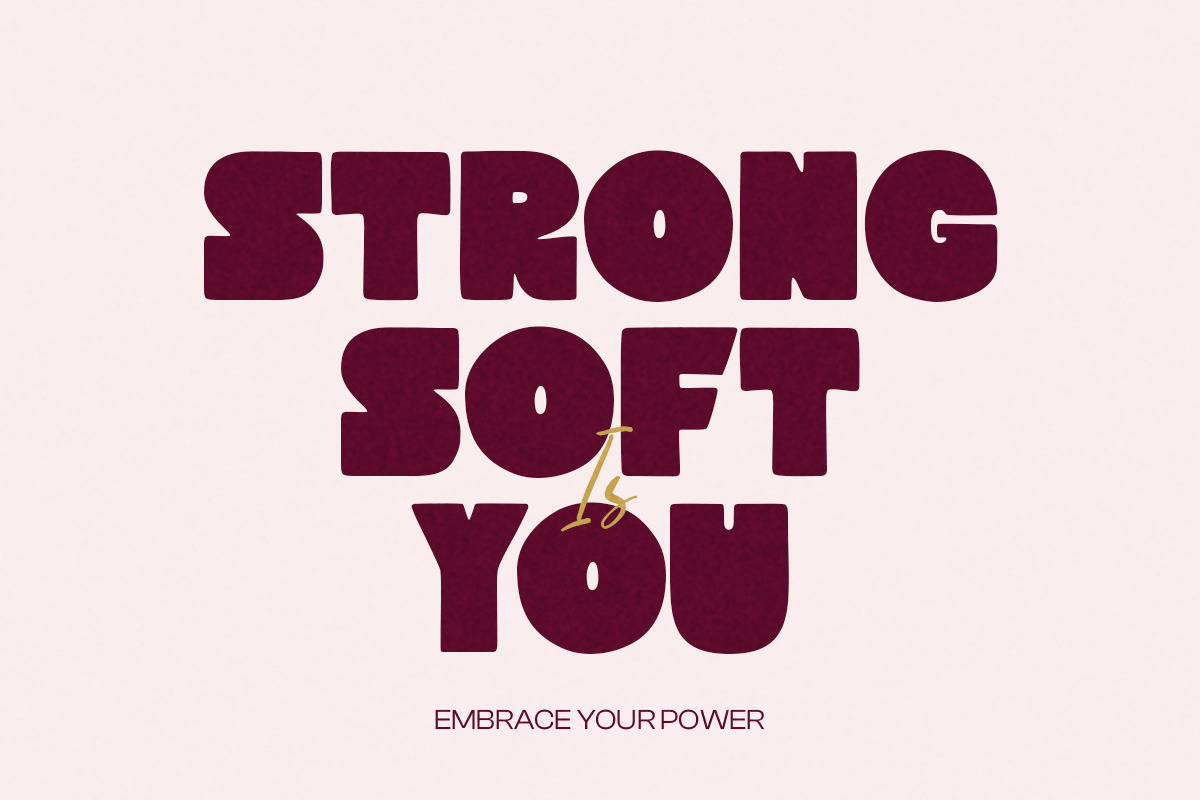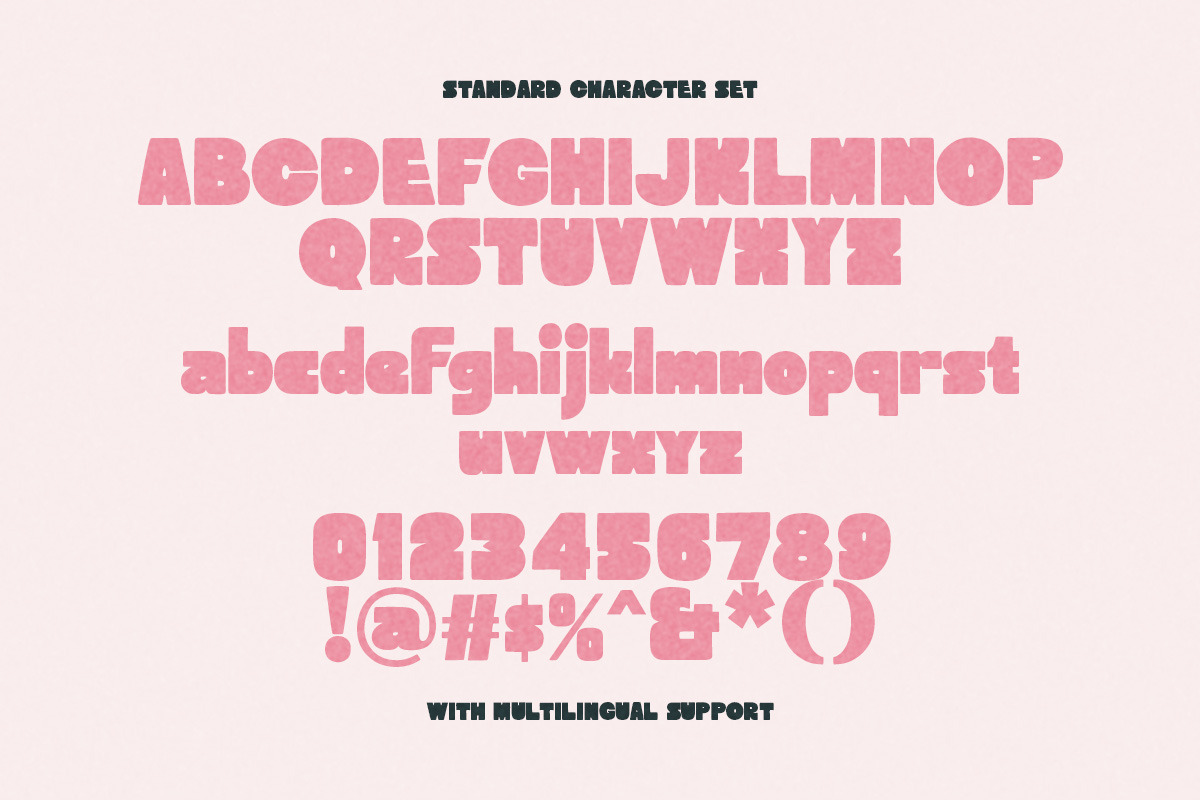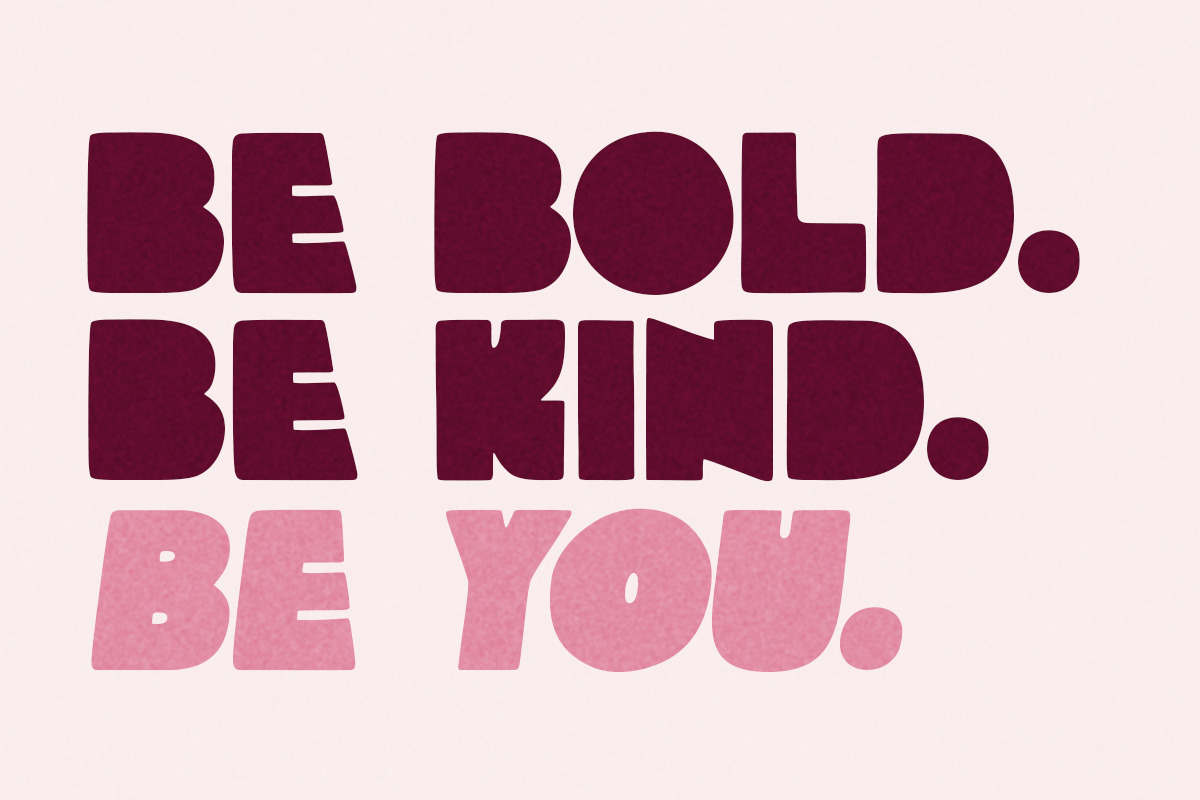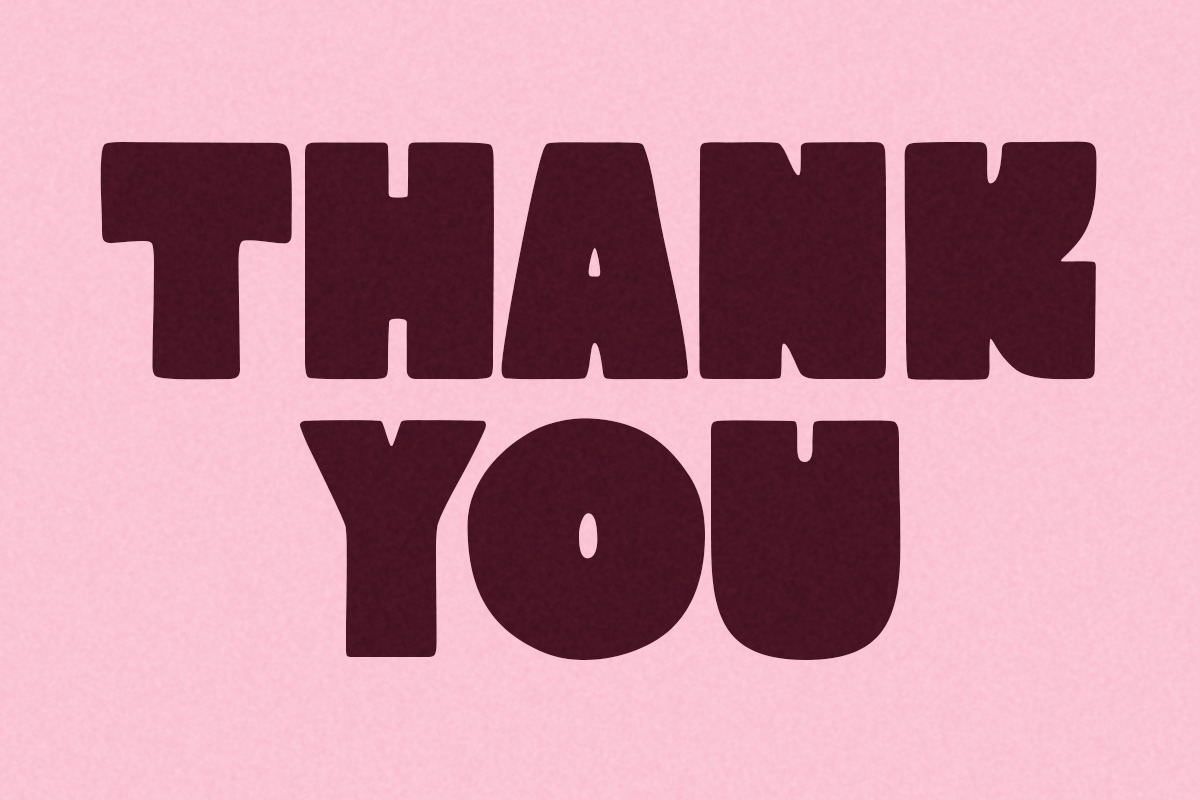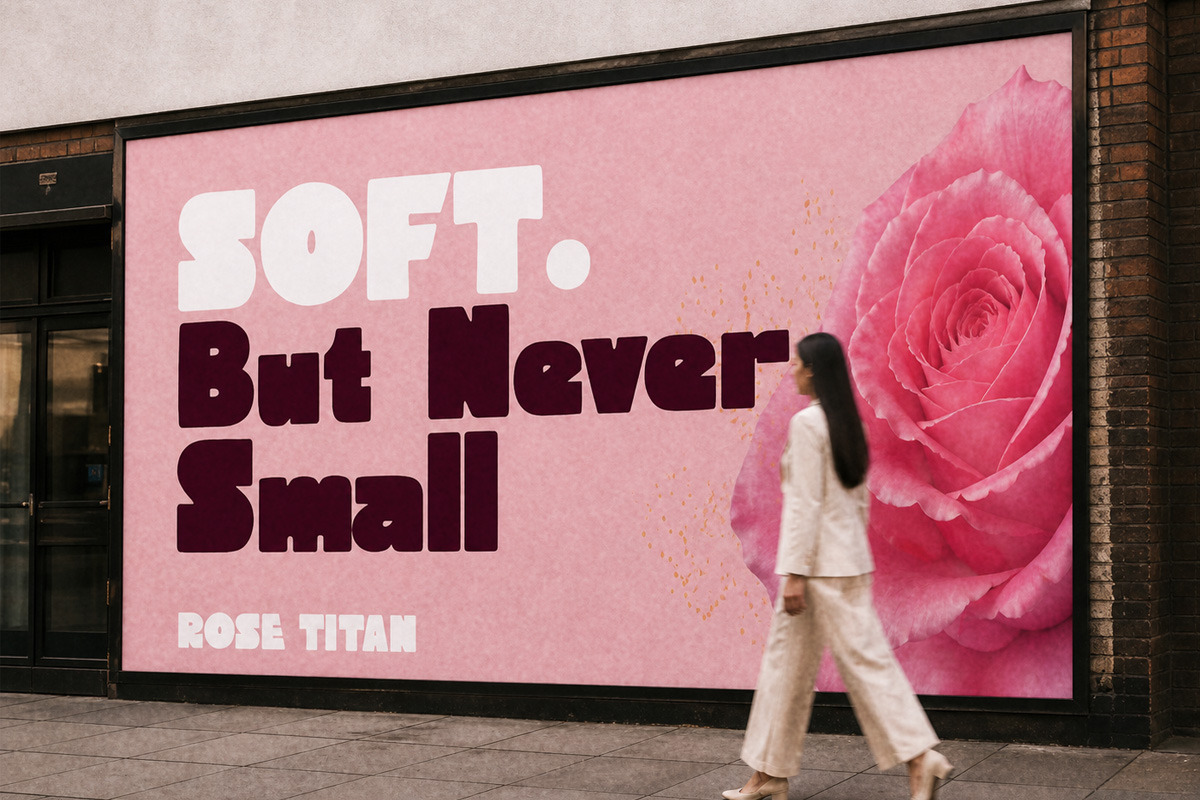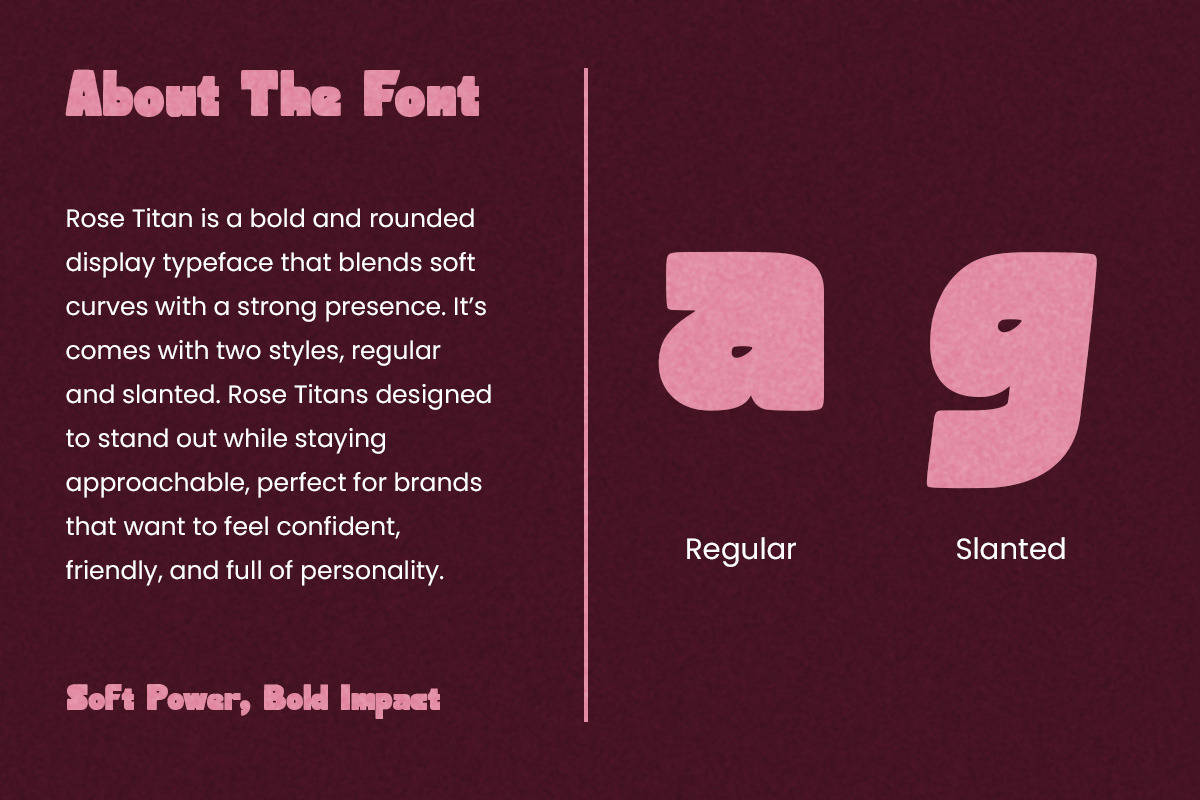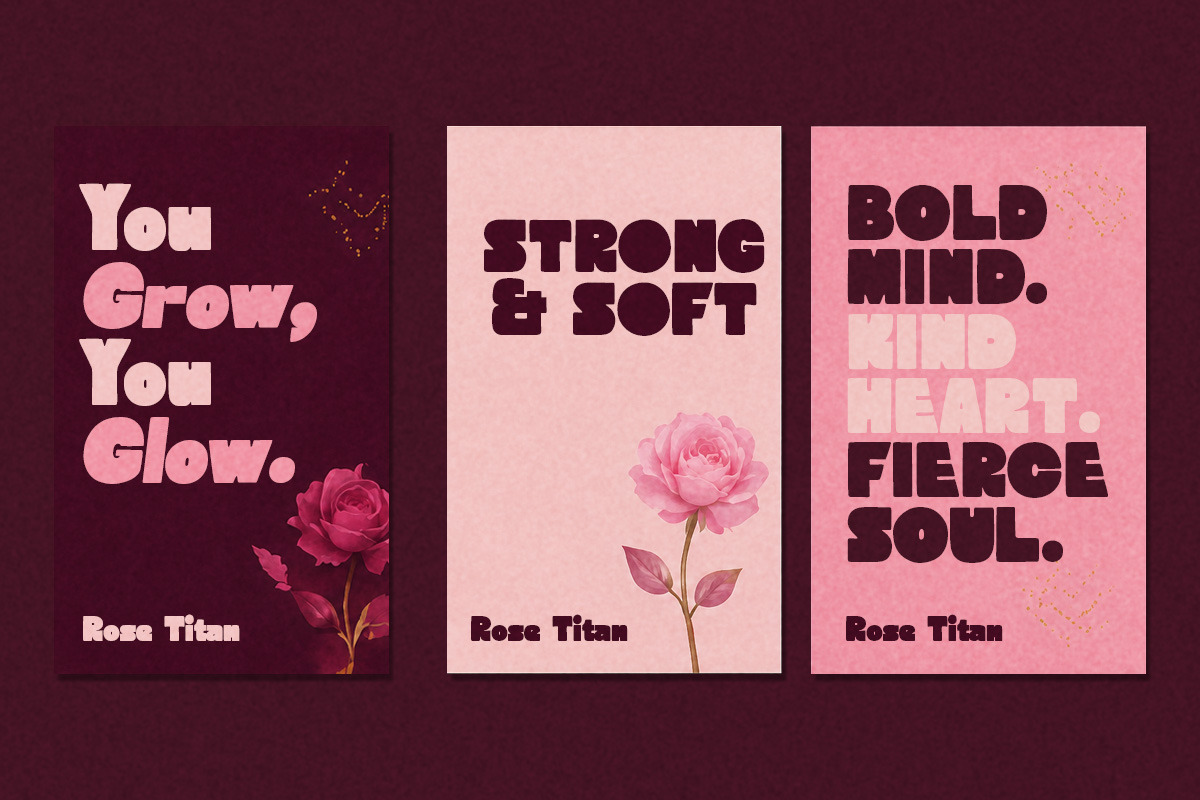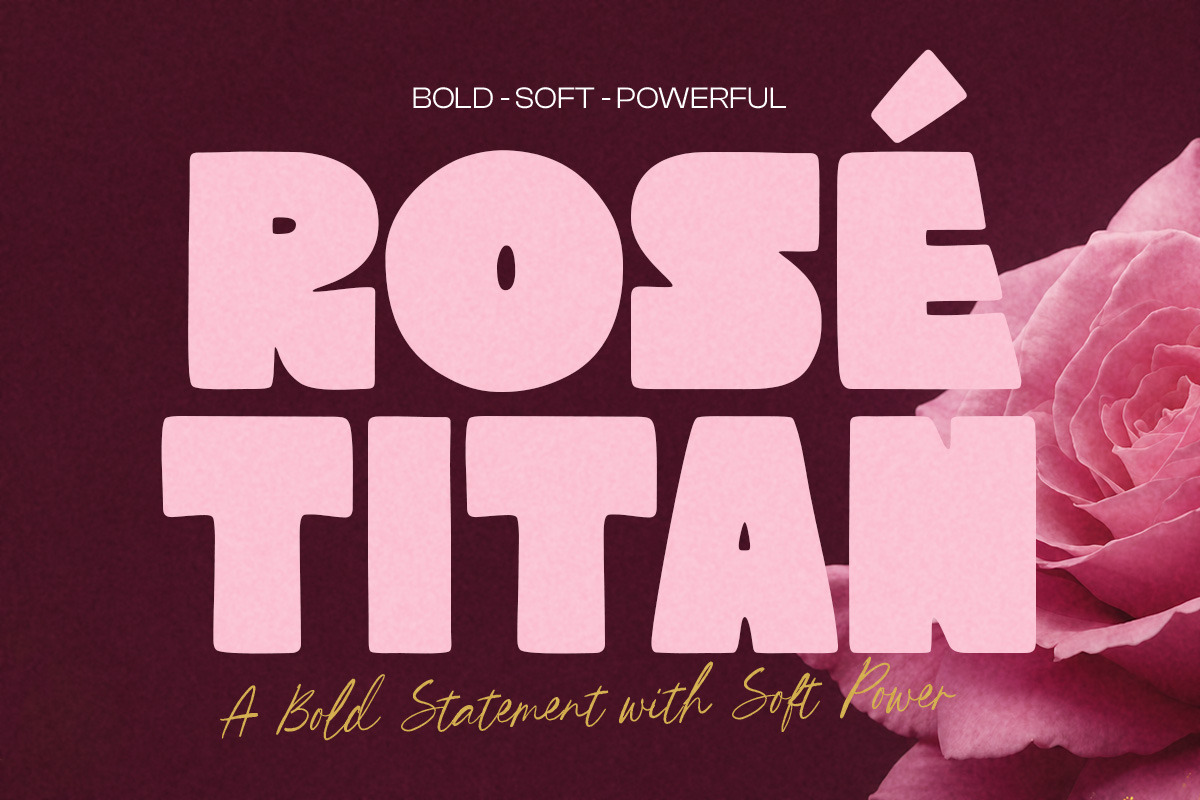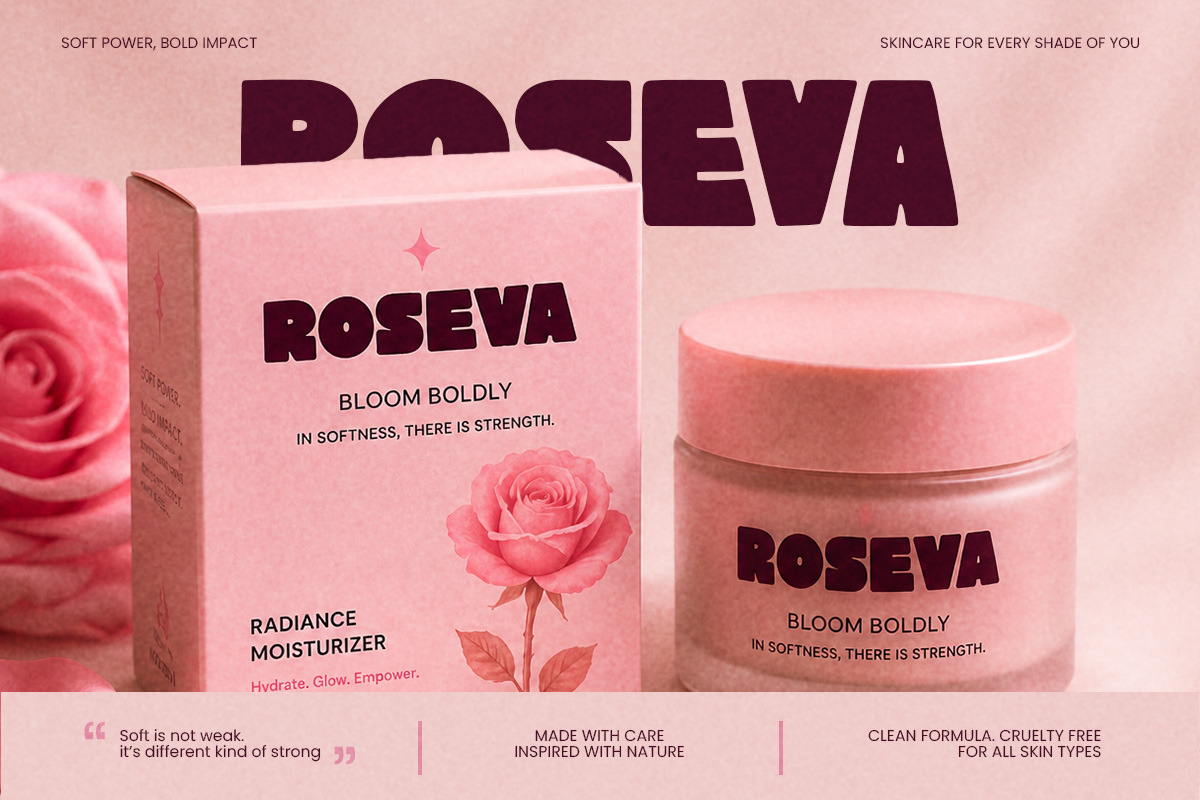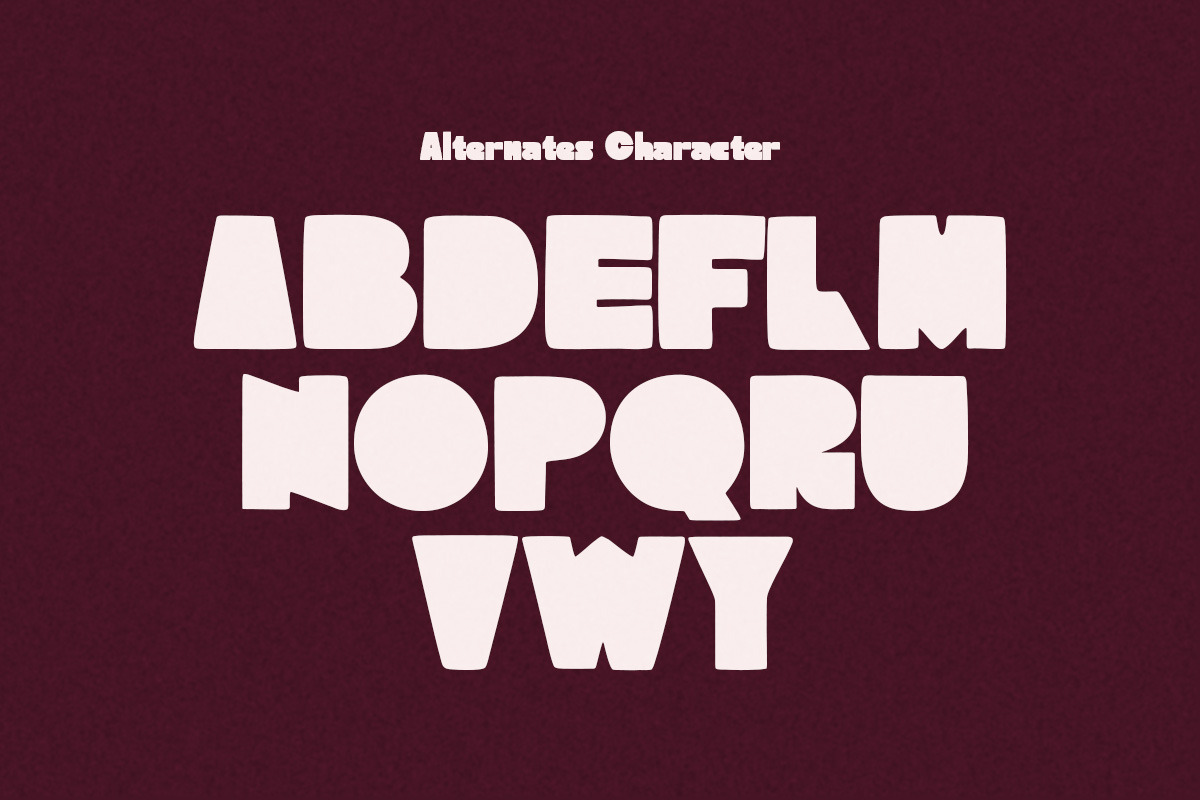
Rose Titan Bold Display Font
Rose Titan is a bold display font with chunky curves, soft corners, and a strong feminine energy that feels both powerful and sweet at the same time. Inspired by retro poster styles and modern beauty branding, this typeface brings a smooth confident look without losing its playful charm.
Uppercase & lowercase
Numbers and punctuation
Alternates & Ligatures